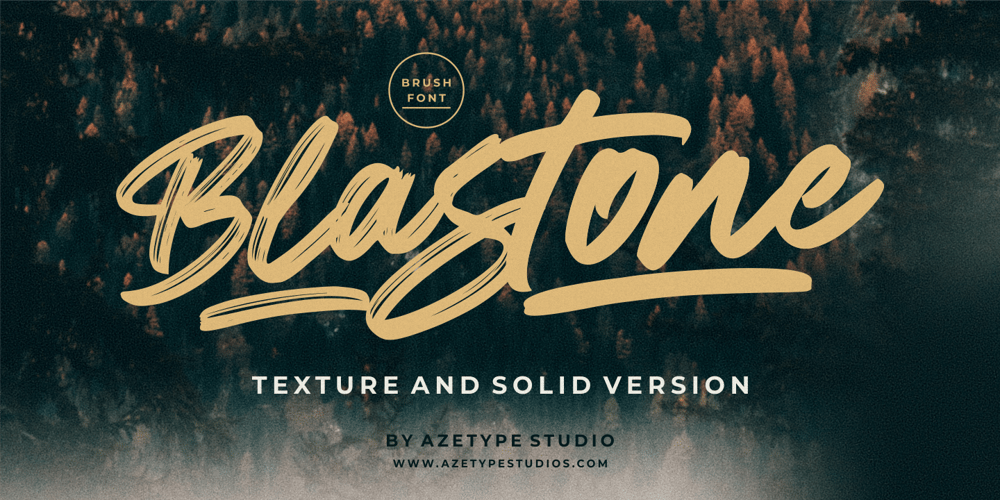
Blastone Font Family was designed by Muh. Aswar and published by Azetype. Blastone contains 6 styles and family package options. Presenting Blastone! A Brush Font with 2 Versions, Alternates, and Extra. This font made with the perfect combination of each character. You can type by Mix & Match with an alternate version and extra swashes to get a unique combining. It looks original and can be used for all your project needs. Each glyph has its own uniqueness and when meeting with others will provide dynamic and pleasing proximity. This font can be used at any time and any project. You can see in the presentation picture above, Blastone looks amazing on design projects.So, Blastone Font can’t wait to give its touch to all your design projects such as quotes, poster design, personal branding, promotional materials, logotype, product packaging, etc.Besides that, Besteam also has some ligature that gives a surprise when you type certain characters combining. The ligatures are ee, ff, ii, nn, oo, rr, ss, tt, and yy.WHAT’S INCLUDED?1. Blastone Texture • The first version comes with uppercase, lowercase, ligatures, numeral, punctuation, symbols, and Standard Latin Multilingual Support (Afrikaans, Albanian, Catalan, Danish, Dutch, English, French, German, Icelandic, Indonesian, Italian, Malay, Norwegian, Portuguese, Spanisch, Swedish, Zulu, and More).2. Blastone Texture Alternate • The Second version comes with uppercase, lowercase, ligatures, numeral, punctuation, symbols, and Standard Latin Multilingual Support (Afrikaans, Albanian, Catalan, Danish, Dutch, English, French, German, Icelandic, Indonesian, Italian, Malay, Norwegian, Portuguese, Spanisch, Swedish, Zulu, and More).3. Blastone Solid • It comes with uppercase, lowercase, ligatures, numeral, punctuation, symbols, and Standard Latin Multilingual Support (Afrikaans, Albanian, Catalan, Danish, Dutch, English, French, German, Icelandic, Indonesian, Italian, Malay, Norwegian, Portuguese, Spanisch, Swedish, Zulu, and More).4. Blastone Solid Alternate • It comes with uppercase, lowercase, ligatures, numeral, punctuation, symbols, and Standard Latin Multilingual Support (Afrikaans, Albanian, Catalan, Danish, Dutch, English, French, German, Icelandic, Indonesian, Italian, Malay, Norwegian, Portuguese, Spanisch, Swedish, Zulu, and More).5. Blastone Texture Swash • It comes with 19 underline swashes. Just type s_1 until s_19 to feature all or type a-z/A-Z and choose this version.6. Blastone Solid Swash • It comes with 19 underline swashes. Just type s_1 until s_19 to feature all or type a-z/A-Z and choose this version.Enjoy the Font!Thank YouAzetype Studio